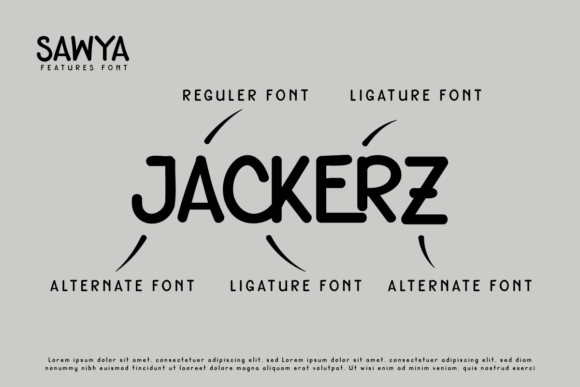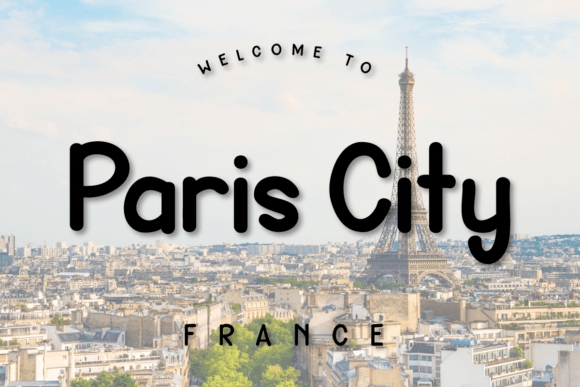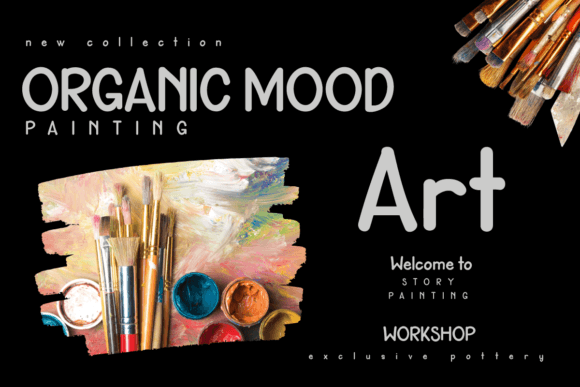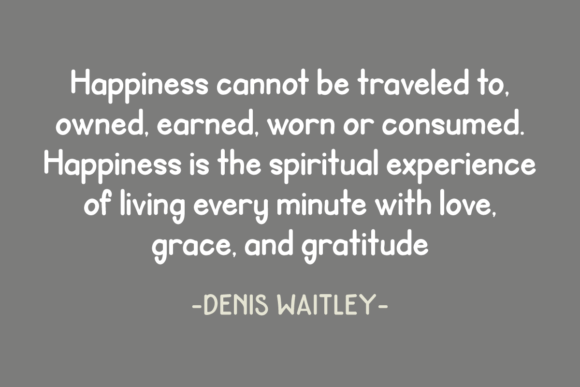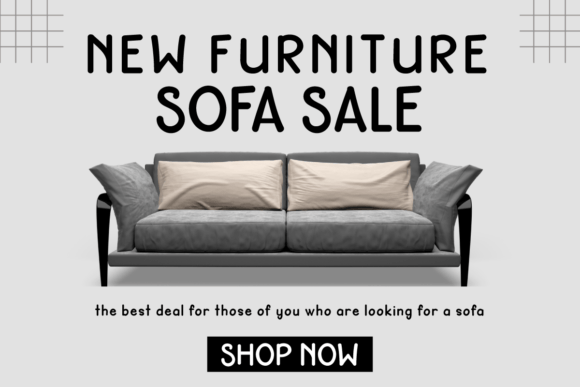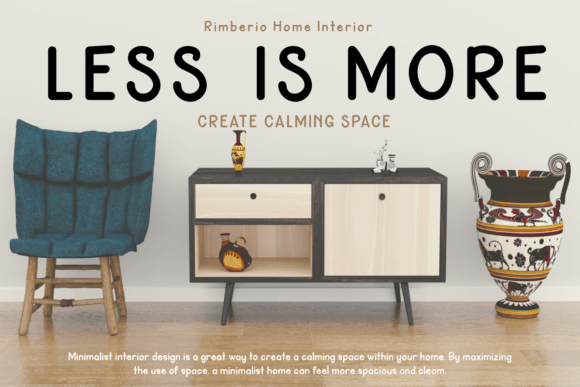
Introduction to Sawya Font
Introducing SAWYA Font – a captivating display typeface that effortlessly embodies the authenticity of handwriting.
Elevate your projects with the artistic touch of SAWYA, a seamless blend of style and individuality Meticulously designed, this typeface adds a distinctive charm to diverse design projects, ranging from invitations to branding materials.
Key Features of Sawya Font